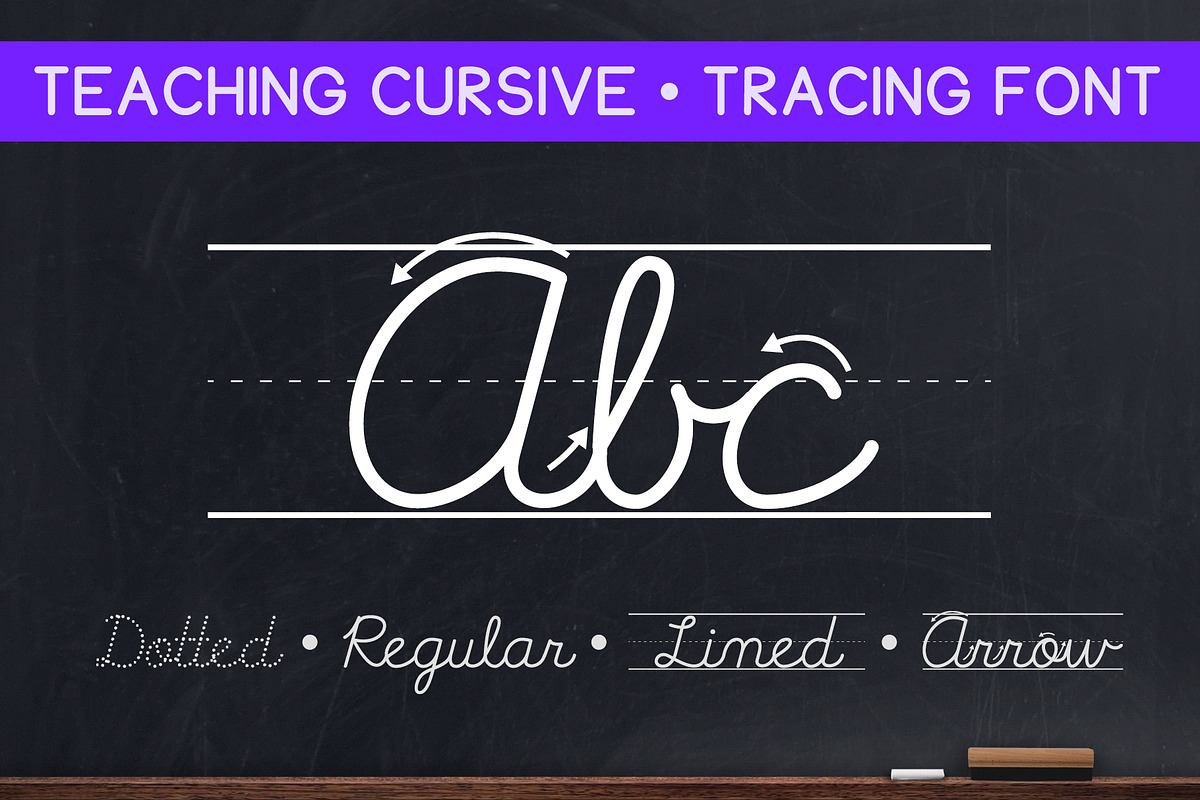
Teaching Cursive Letter Tracing Font Free Download is a specially designed educational typeface that helps young learners practice and master cursive handwriting. Featuring clean, dotted letterforms with ideal stroke guidance, this font is perfect for worksheets, classroom materials, homeschooling resources, and early writing development activities.
Teaching Cursive Letter Tracing Font Free Download supports structured learning by making it easy for students to follow letter shapes and improve their handwriting skills. Whether you're a teacher, parent, or educational designer, this font provides a practical and effective tool for building confident cursive writers. Download it now and bring fun, guided handwriting practice into your educational toolkit.